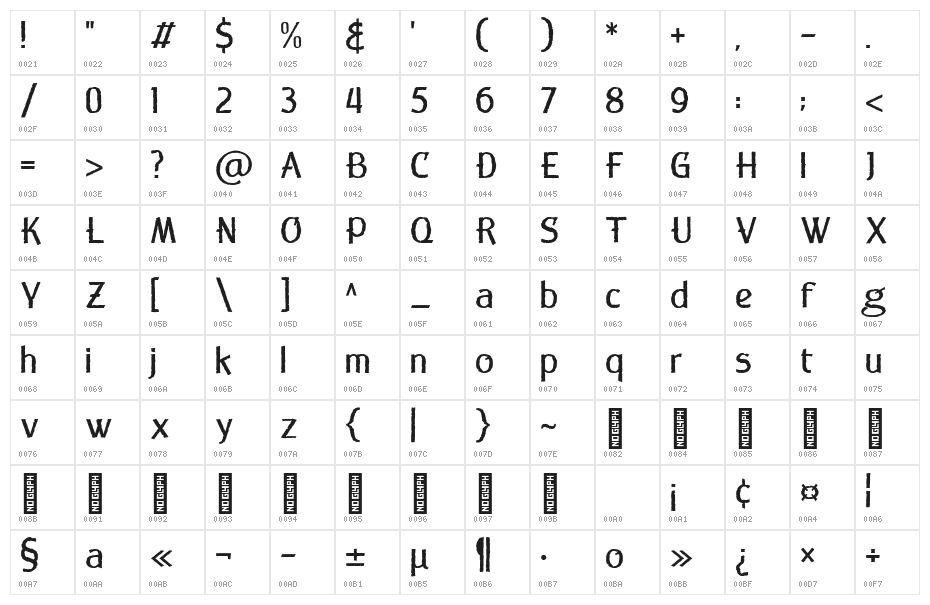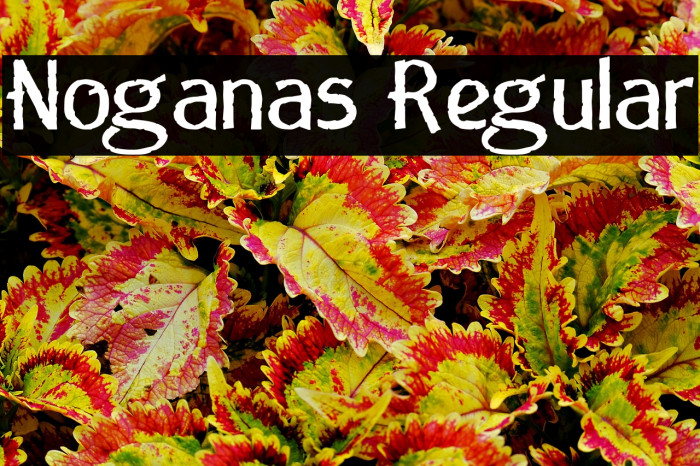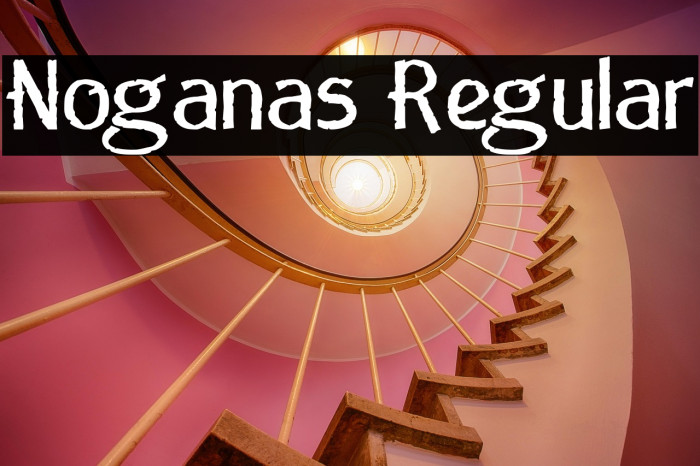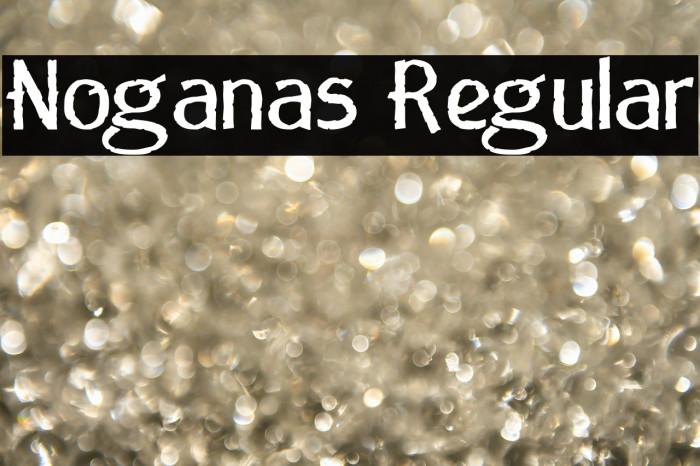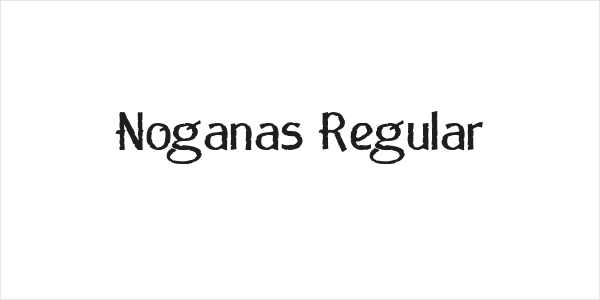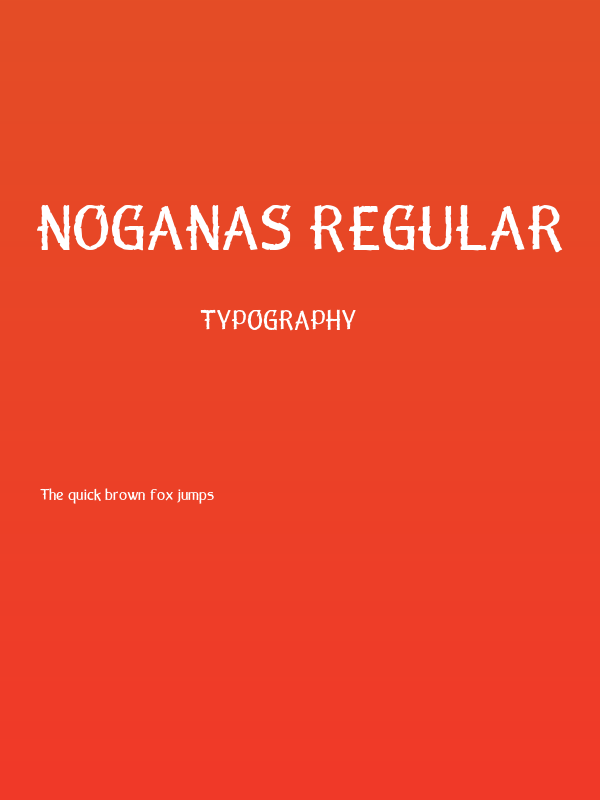
Noganas Regular Font
Noganas Regular Description
This font features a rugged, hand-drawn style with irregular edges and a slightly distressed appearance. The characters are bold and have a strong presence, making them stand out in any design. The uppercase and lowercase letters maintain a consistent style, with a playful yet assertive look. Numbers and special characters follow the same aesthetic, ensuring a cohesive appearance across all text elements. The font's unique texture and organic feel make it ideal for projects that require a touch of authenticity and creativity.
| Proposed Projects | Ideal for posters, album covers, branding projects, and any design that requires a bold, artistic touch. |